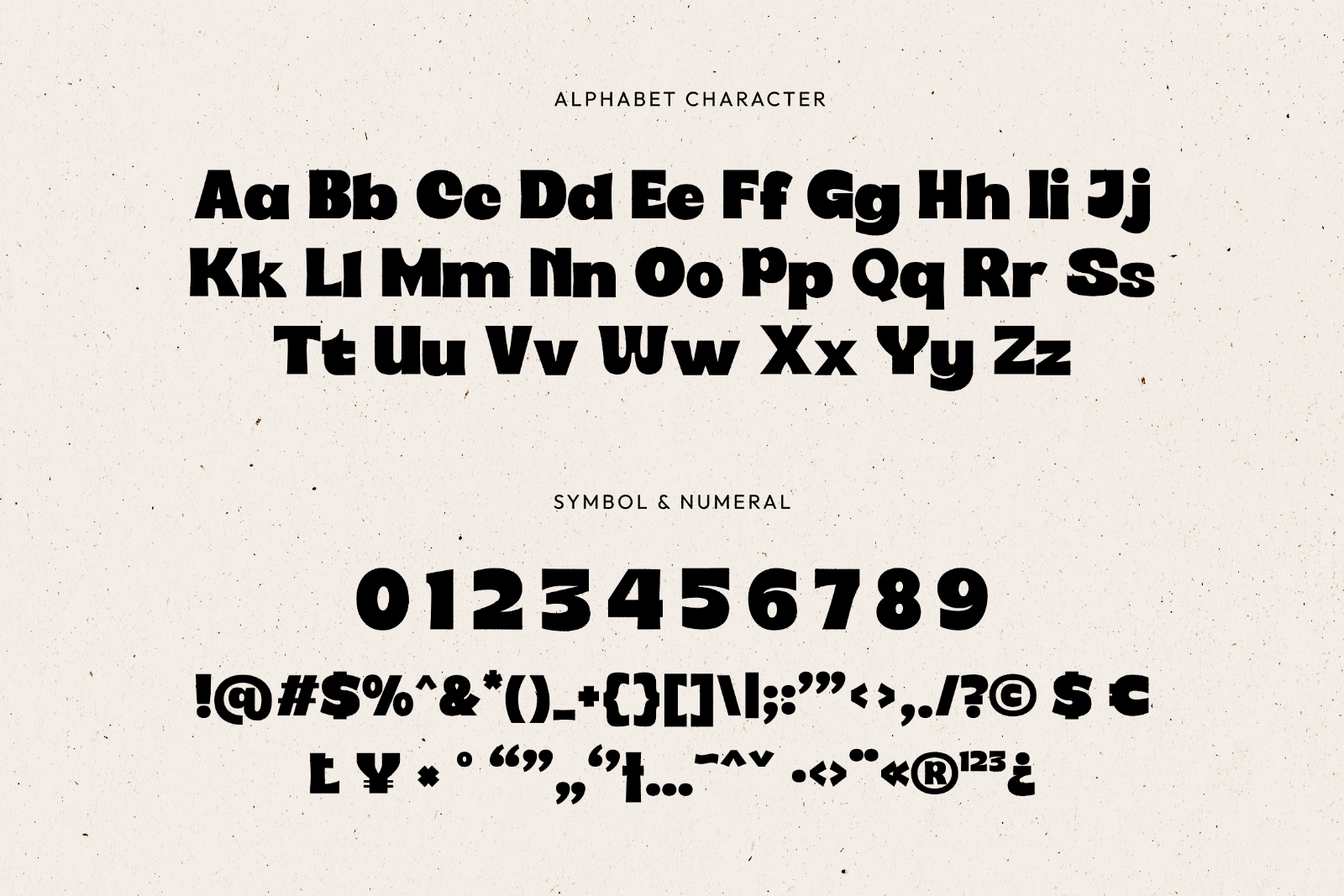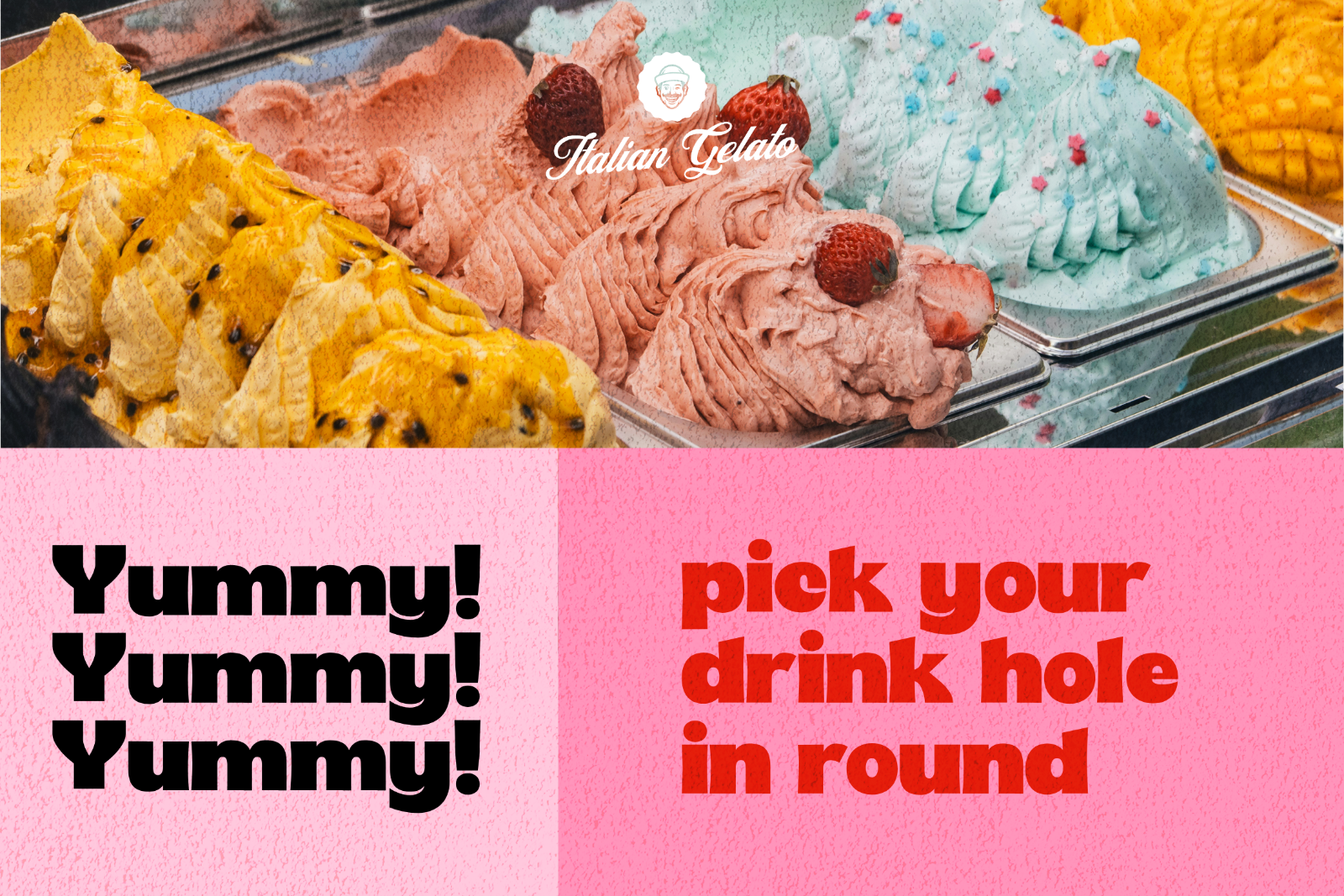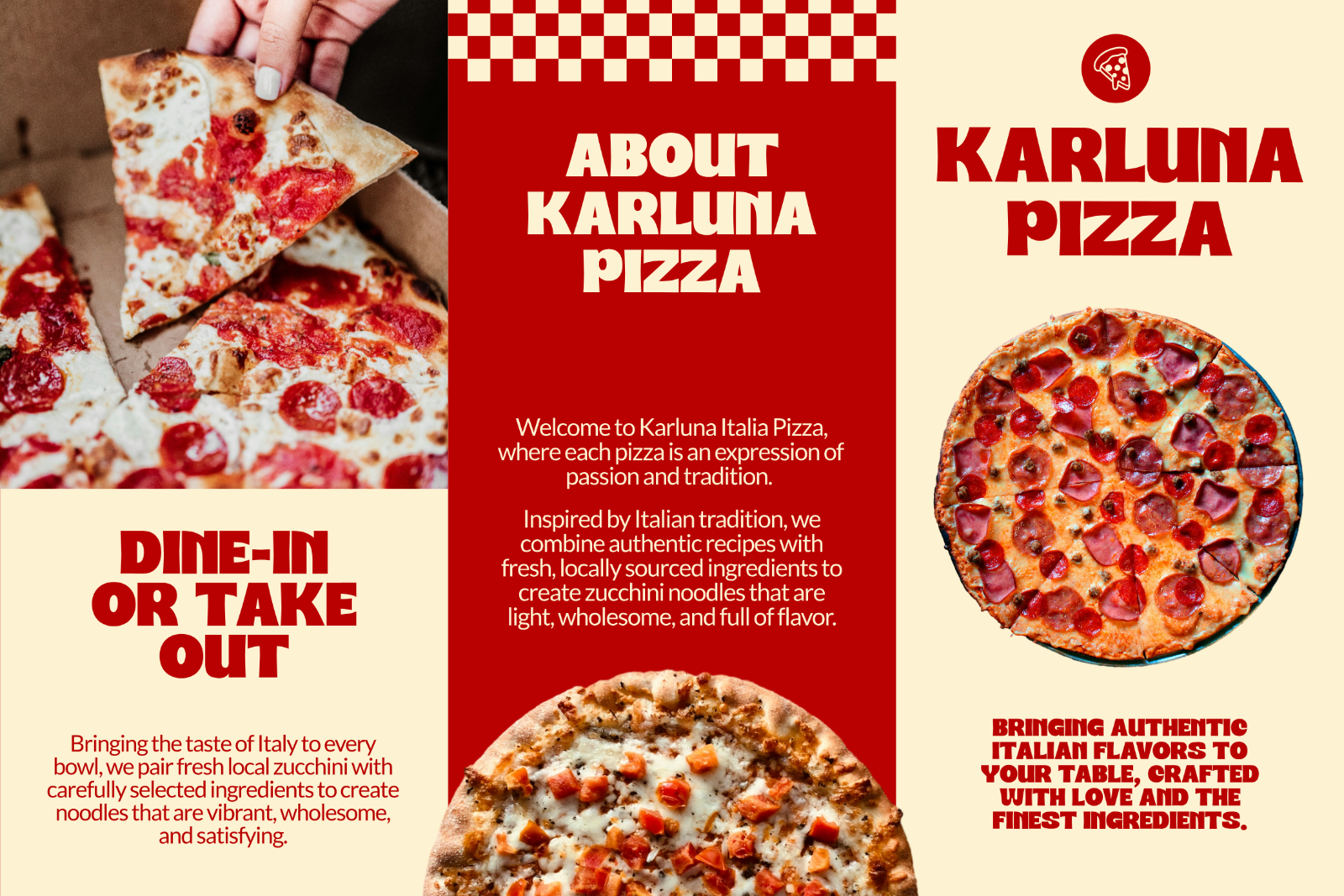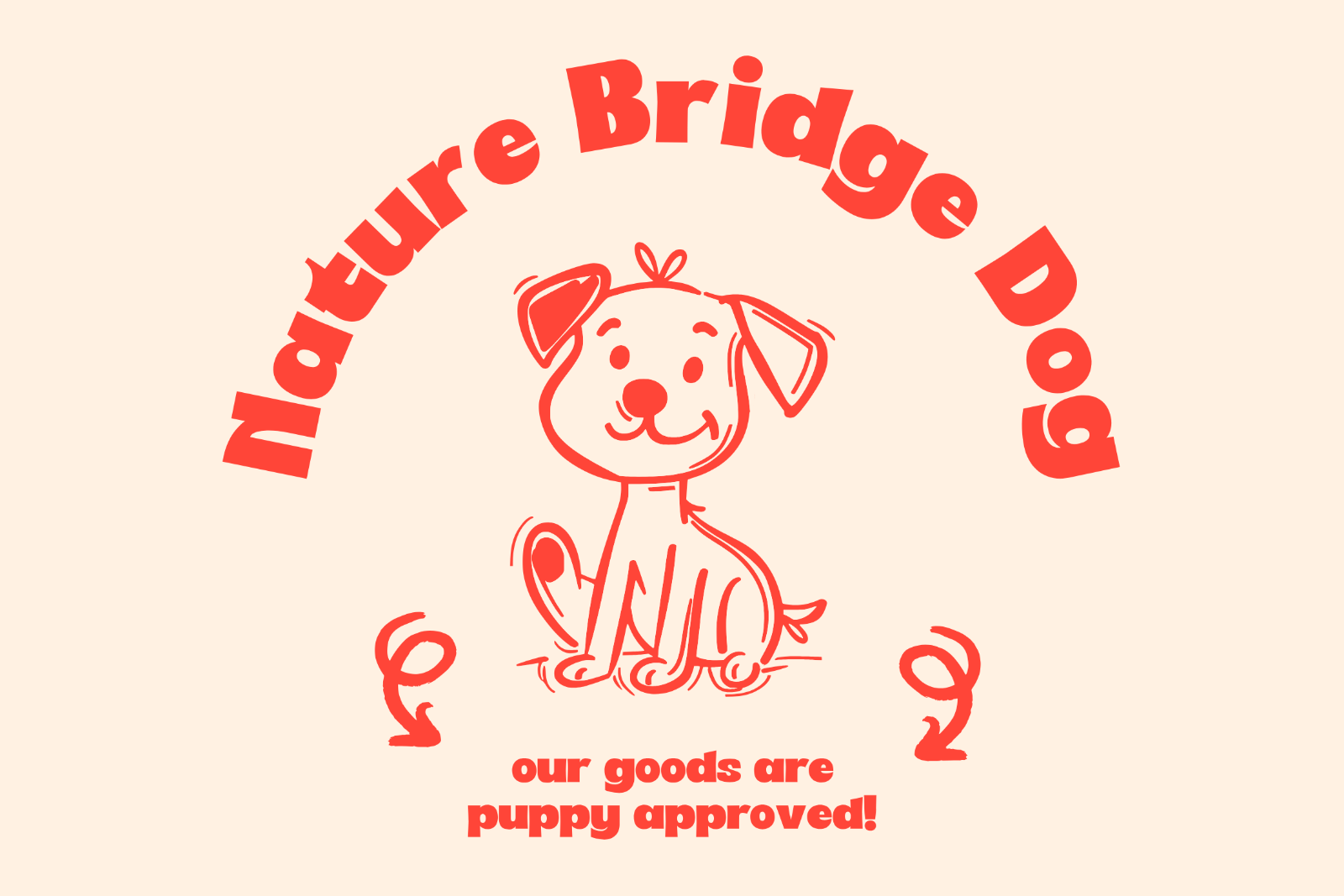
Bring instant joy, energy, and bold impact to your designs with Motesa, a delightfully chunky and expressive display sans serif! Designed with ultra heavy strokes, playful curves, and distinct visual quirks, Motesa is crafted to command attention while keeping a warm, friendly personality.
Versatile modern retro hybrid: Blends clean sans serif geometry with groovy '70s and Y2K pop energy. Motesa font ideal for:
• Packaging and Labels: Perfect for food, snacks, gelato, bakery products, and pet goods.
• Branding and Logos: Great for playful brands, cafes, children's products, and lifestyle shops.
• Posters and Headlines: Dominates hero banners, social media graphics, quote prints, and magazine covers.
• Uppercase and Lowecase Characters.
• Numerals and Punctuations.
• Alternates and Ligatures.
• Multilingual Support.